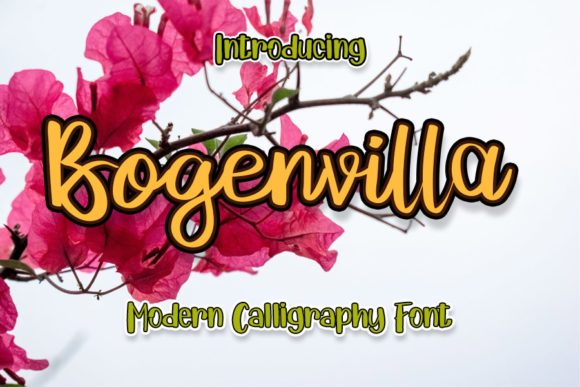
The Quest for the Perfect Romantic Font: Discovering Bogenvilla
I’ll never forget the time I was working on a wedding invitation project, and my client asked for a font that was “romantic, elegant, and joyful.” I scoured the internet, tried out dozens of fonts, but nothing seemed quite right. That was until I stumbled upon Bogenvilla, a beautiful handwritten font that stole my heart. In this article, I’ll share my experience with Bogenvilla, and show you how to make the most of this gorgeous font.
An Honest Review of Bogenvilla
Bogenvilla is a romantic and elegant handwritten font that’s perfect for adding a personal touch to your designs. Here’s what I love about it:
- ✨ Romantic and elegant: Bogenvilla has a whimsical, cursive feel that’s perfect for wedding invitations, cards, and other romantic designs.
- ✅ Dainty and joyful: The font has a light, airy feel that’s sure to bring a smile to your face.
- 💕 Highly legible: Despite its elegant feel, Bogenvilla is surprisingly easy to read, even at small sizes.
Of course, no font is perfect, and Bogenvilla has a few quirks:
- 🤔 Limited character set: While Bogenvilla has a wide range of characters, it’s not a full Unicode font, so you may encounter issues with certain special characters.
- ⚠️ Not suitable for body text: Bogenvilla is best used for headings and titles, as it can be a bit too ornate for longer blocks of text.
The Story Behind Bogenvilla
Bogenvilla was designed by a talented font designer who wanted to create a font that captured the essence of romance and elegance. Inspired by traditional calligraphy and handwritten scripts, Bogenvilla is a modern take on classic typography.
| What is Bogenvilla? | Bogenvilla is a romantic and elegant handwritten font that’s perfect for adding a personal touch to your designs. |
| Can I use Bogenvilla for my wedding invitations? | Absolutely! Bogenvilla is a popular choice for wedding invitations and other romantic designs. |
| Does Bogenvilla support OpenType features? | Yes, Bogenvilla supports OpenType features like ligatures and stylistic alternates. |